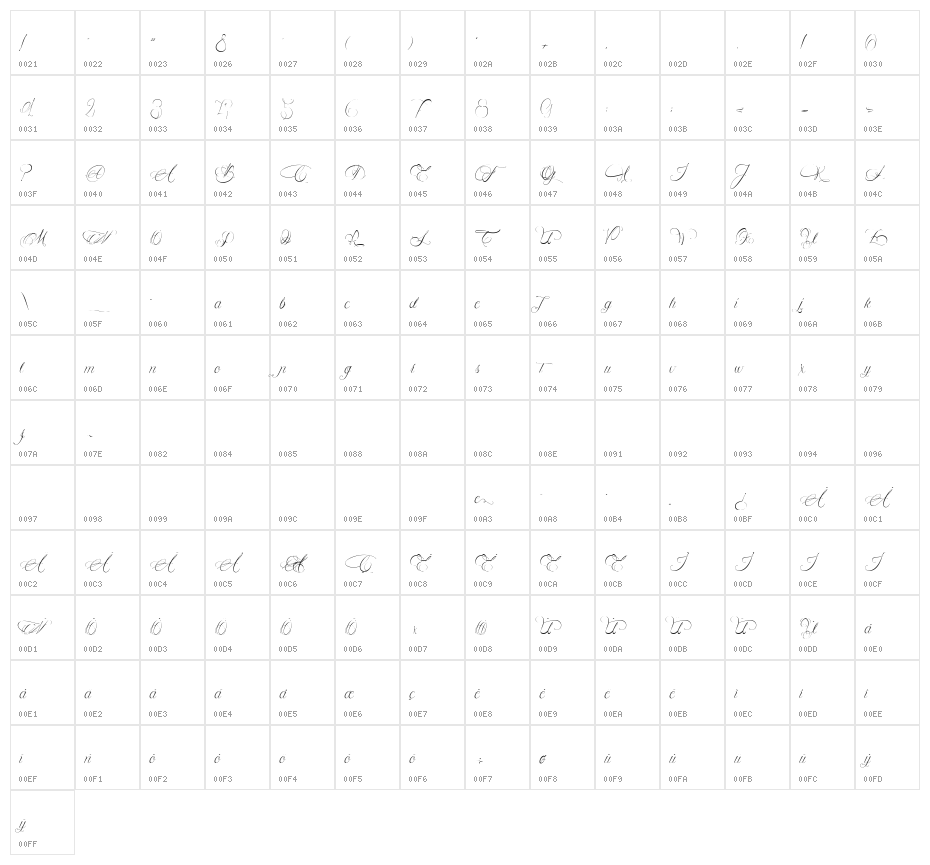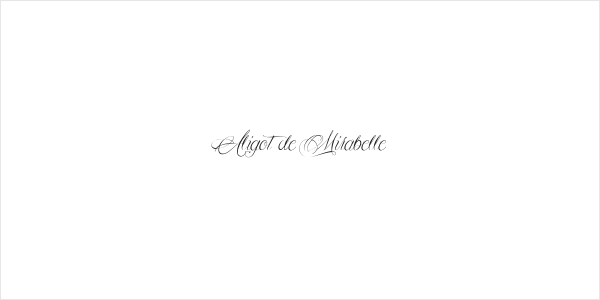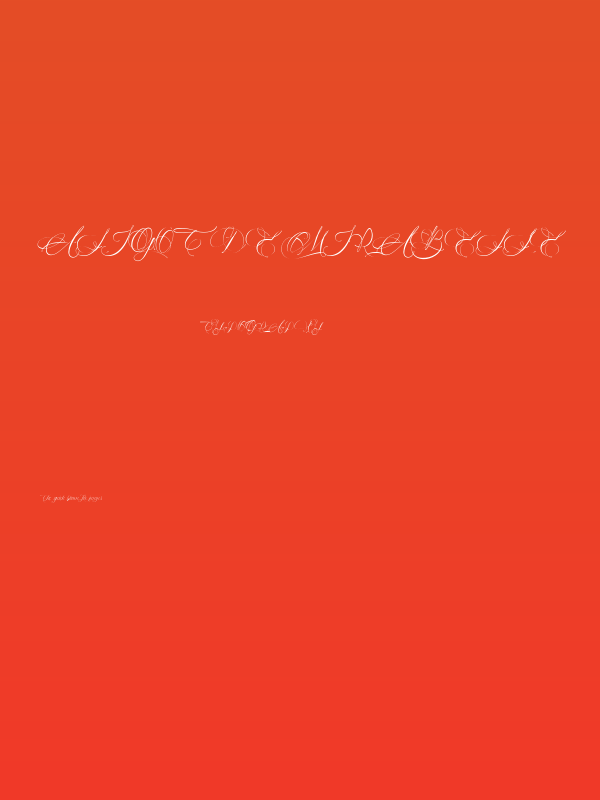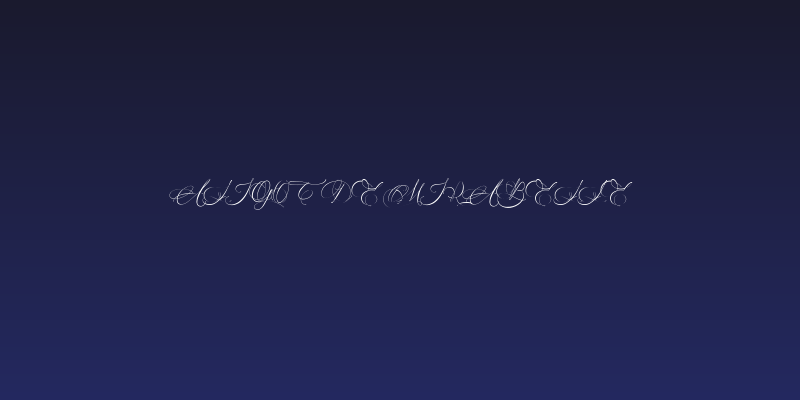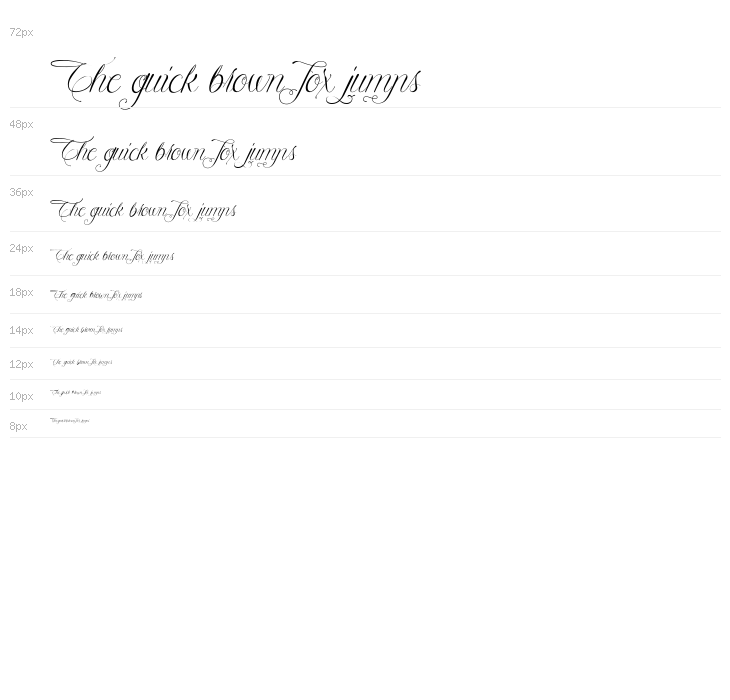
Aligot de Mirabelle Font
Aligot de Mirabelle Description
This font exudes elegance and sophistication with its intricate, swirling script style. Each letter is adorned with elaborate flourishes, creating a sense of movement and grace. The uppercase letters are particularly ornate, featuring loops and curls that extend beyond the baseline and cap height, while the lowercase letters maintain a more restrained yet still decorative appearance. The numerals and special characters are equally embellished, ensuring a cohesive look across all glyphs. The overall design is reminiscent of classic calligraphy, making it ideal for projects that require a touch of refinement and artistry.
| Use Case | Logos, Invitations, Decorative Text |
| Proposed Projects | Ideal for wedding invitations, luxury branding, elegant stationery, and decorative certificates. |